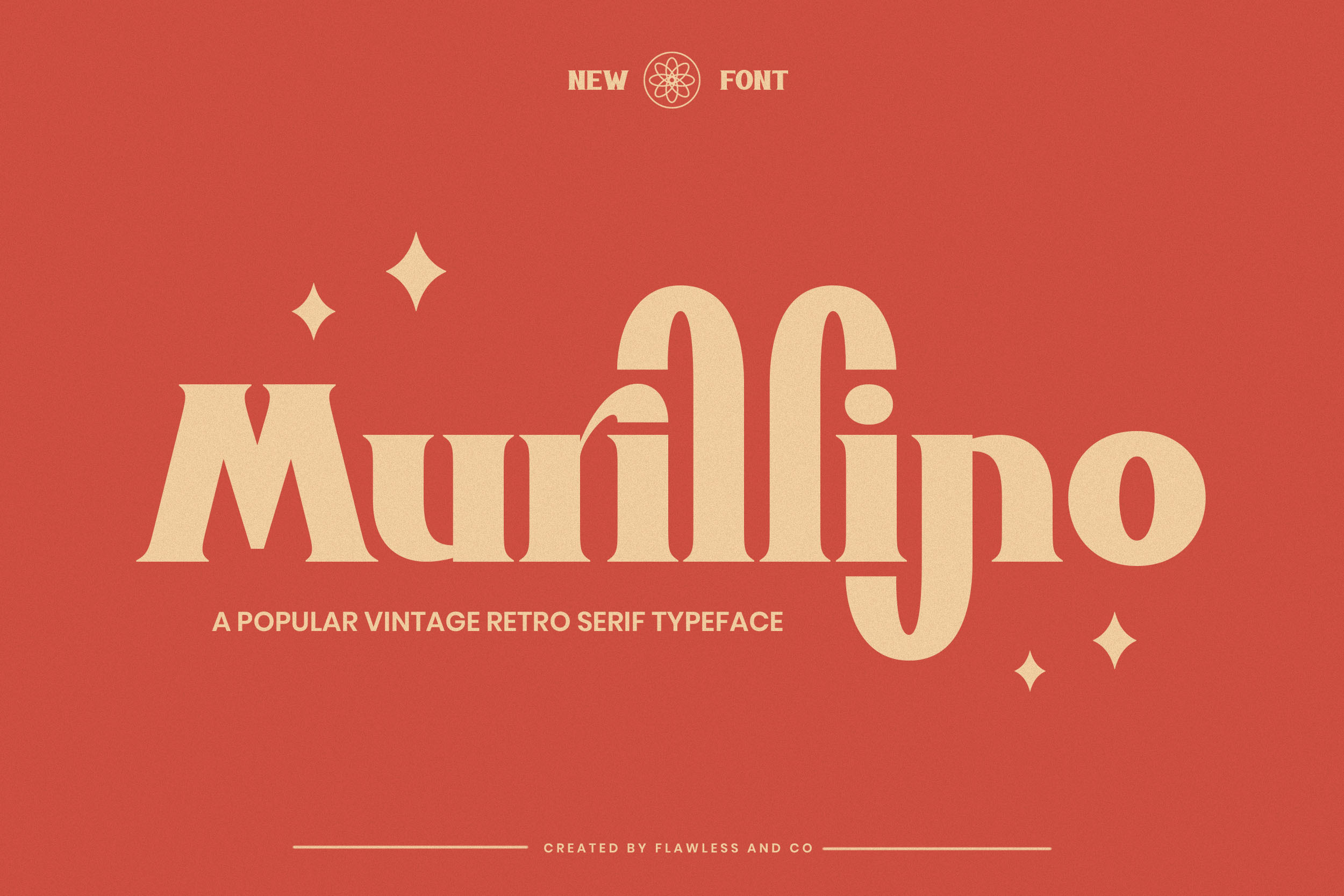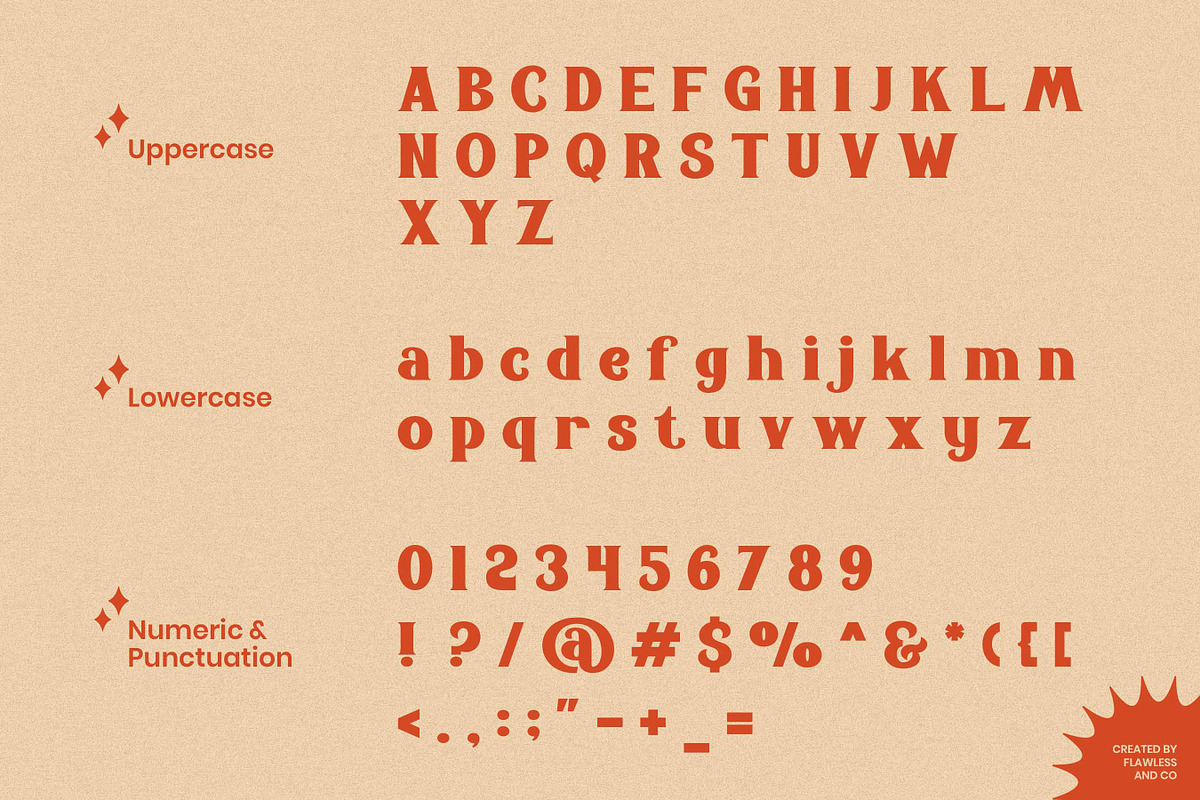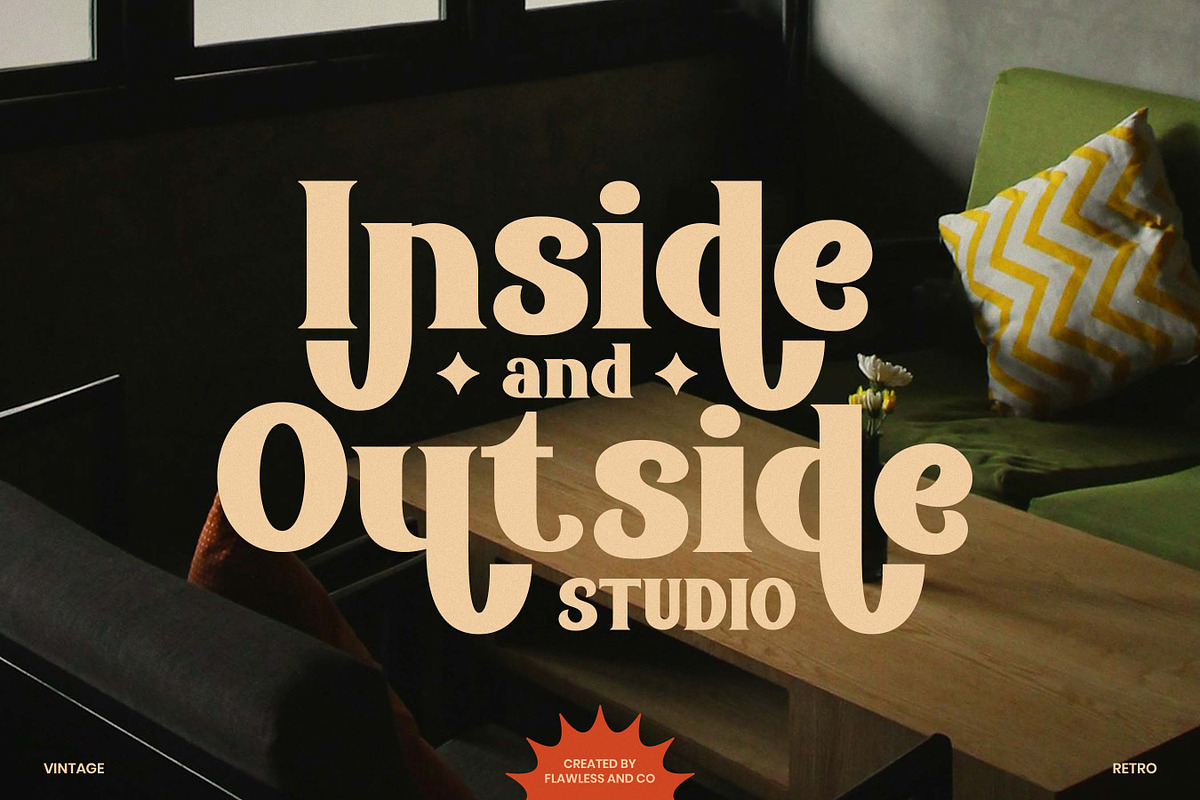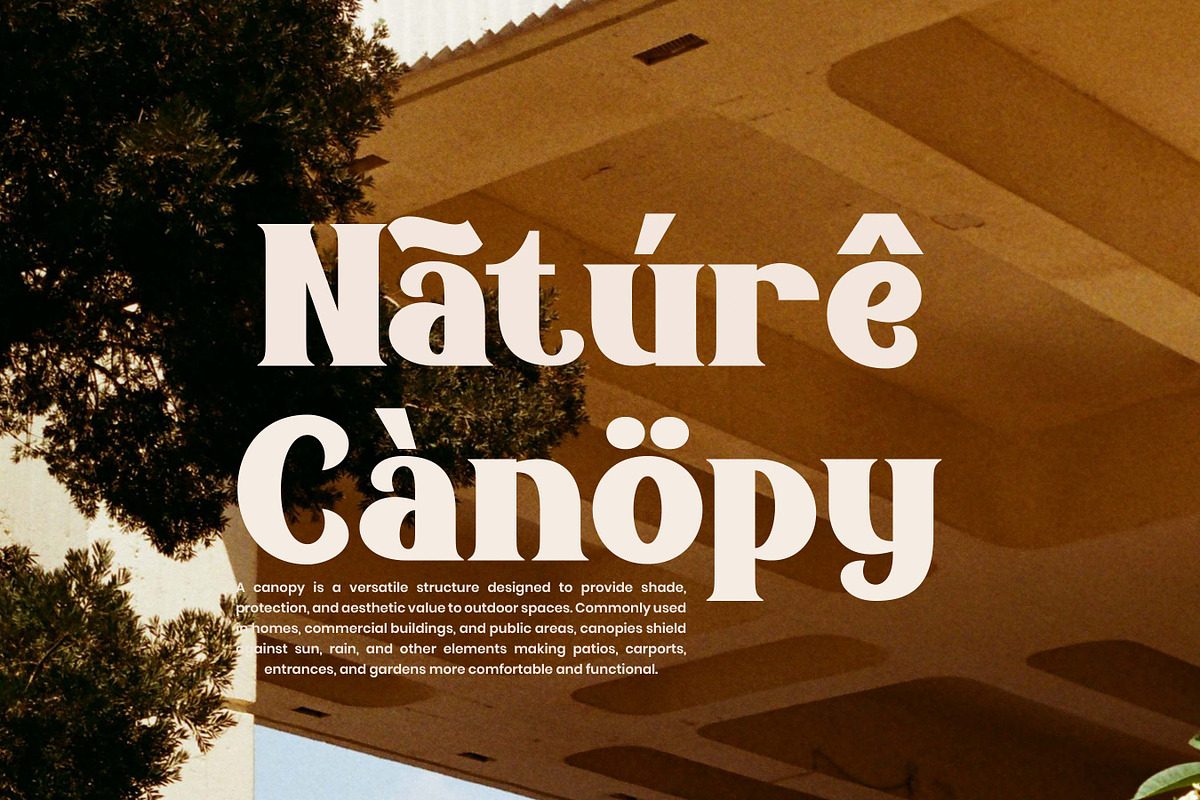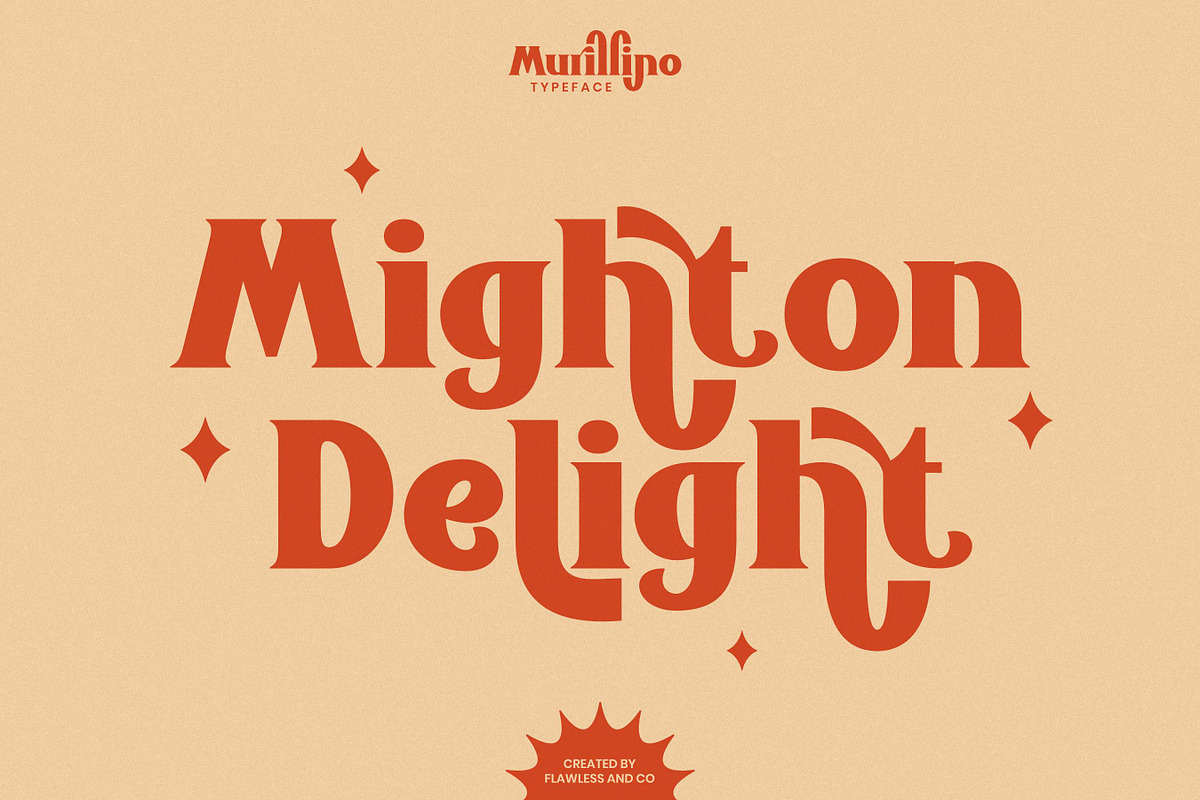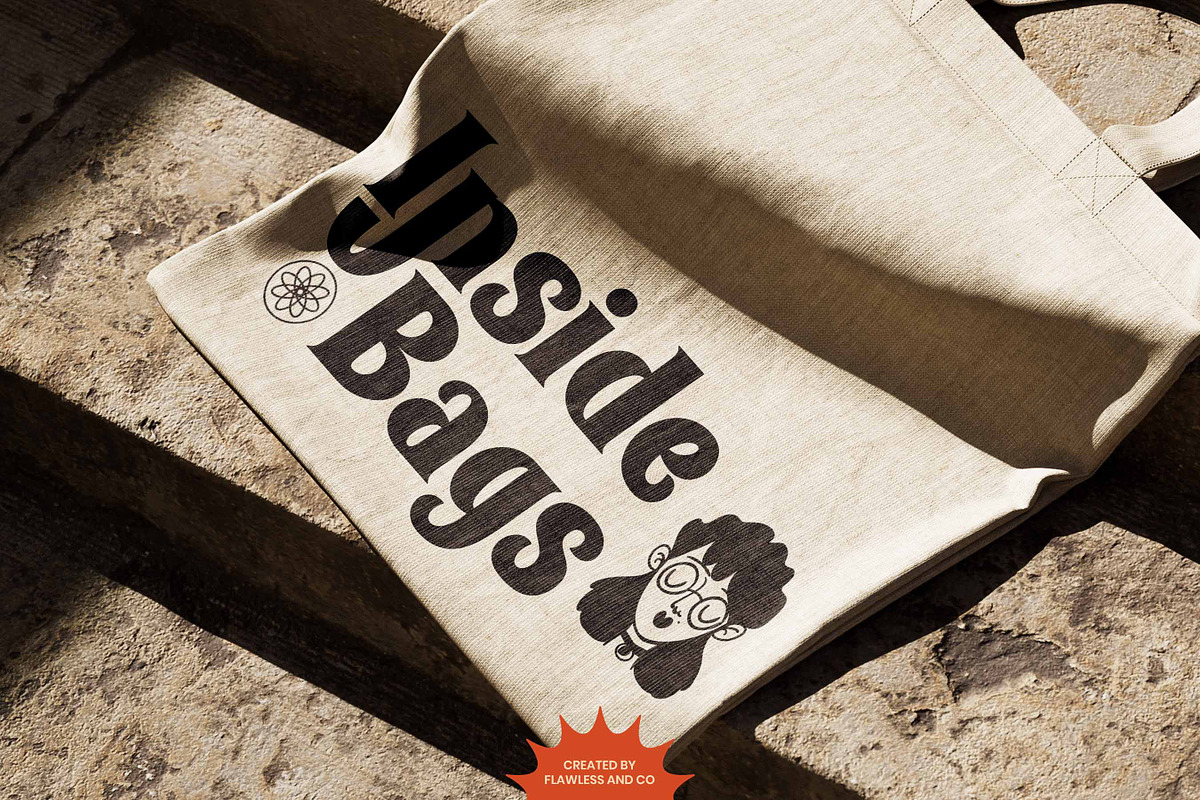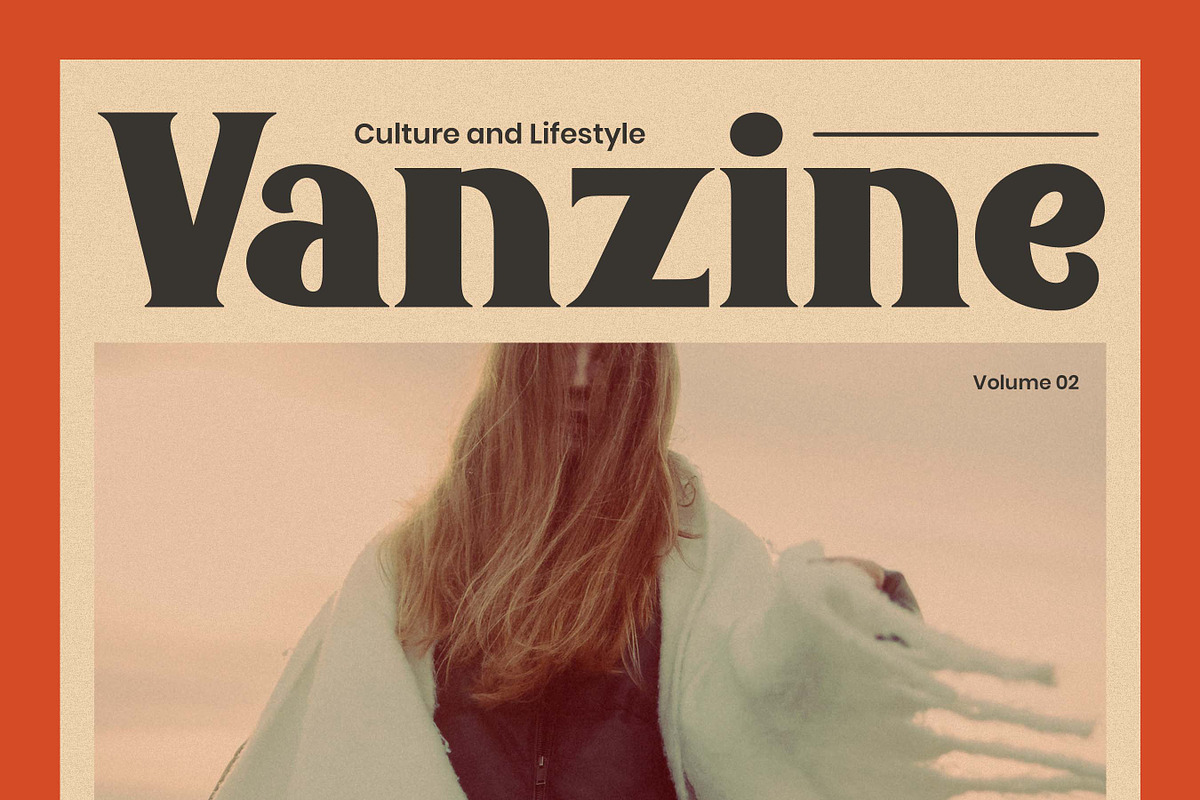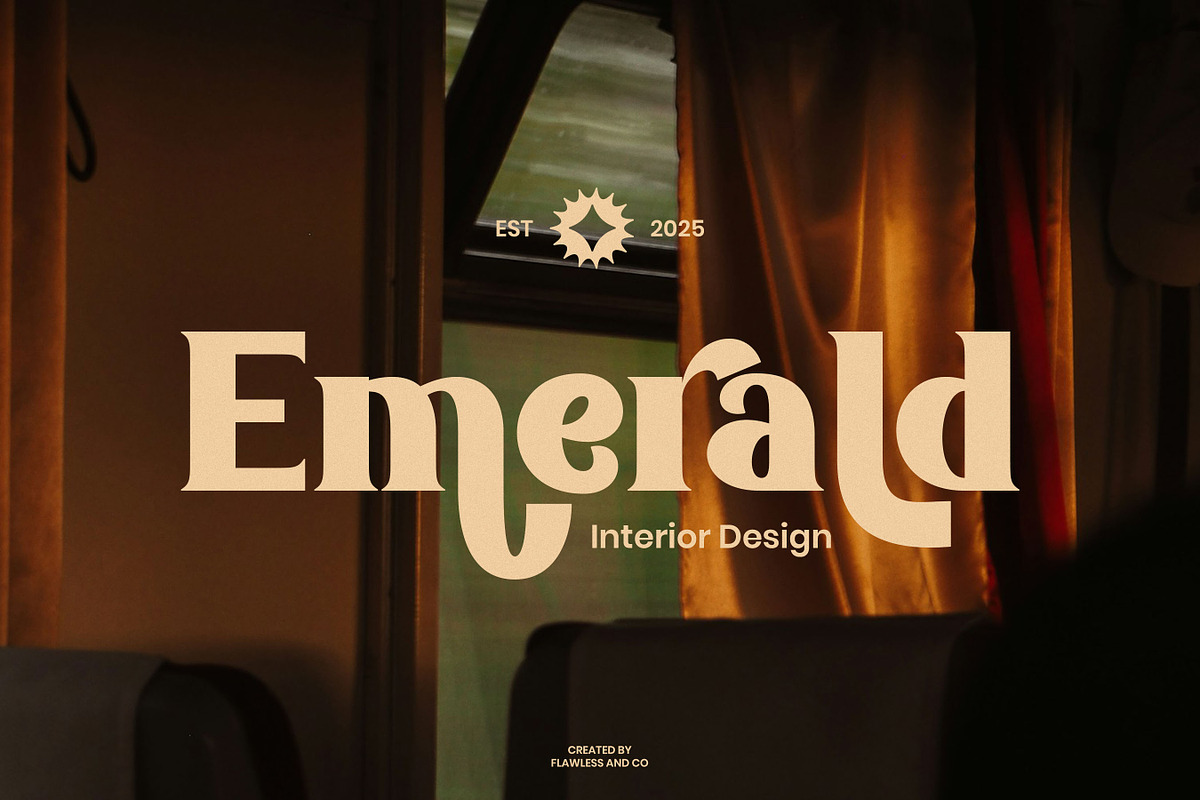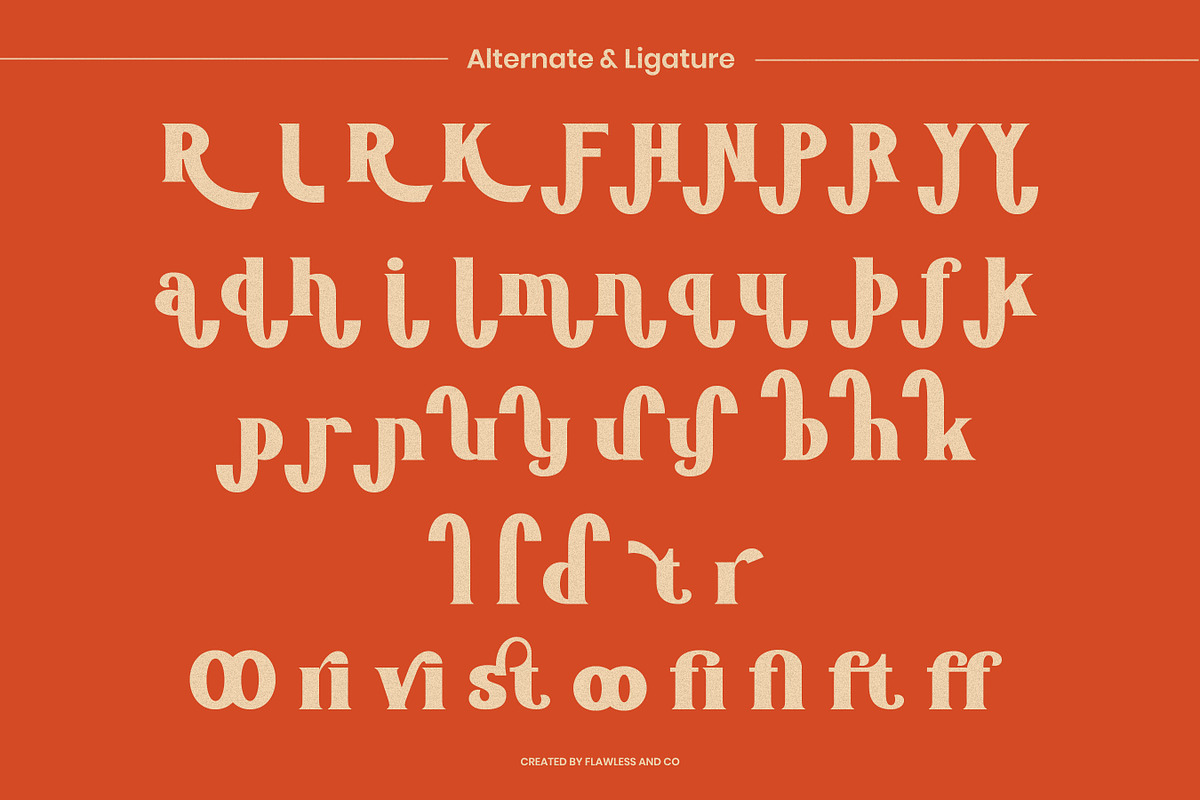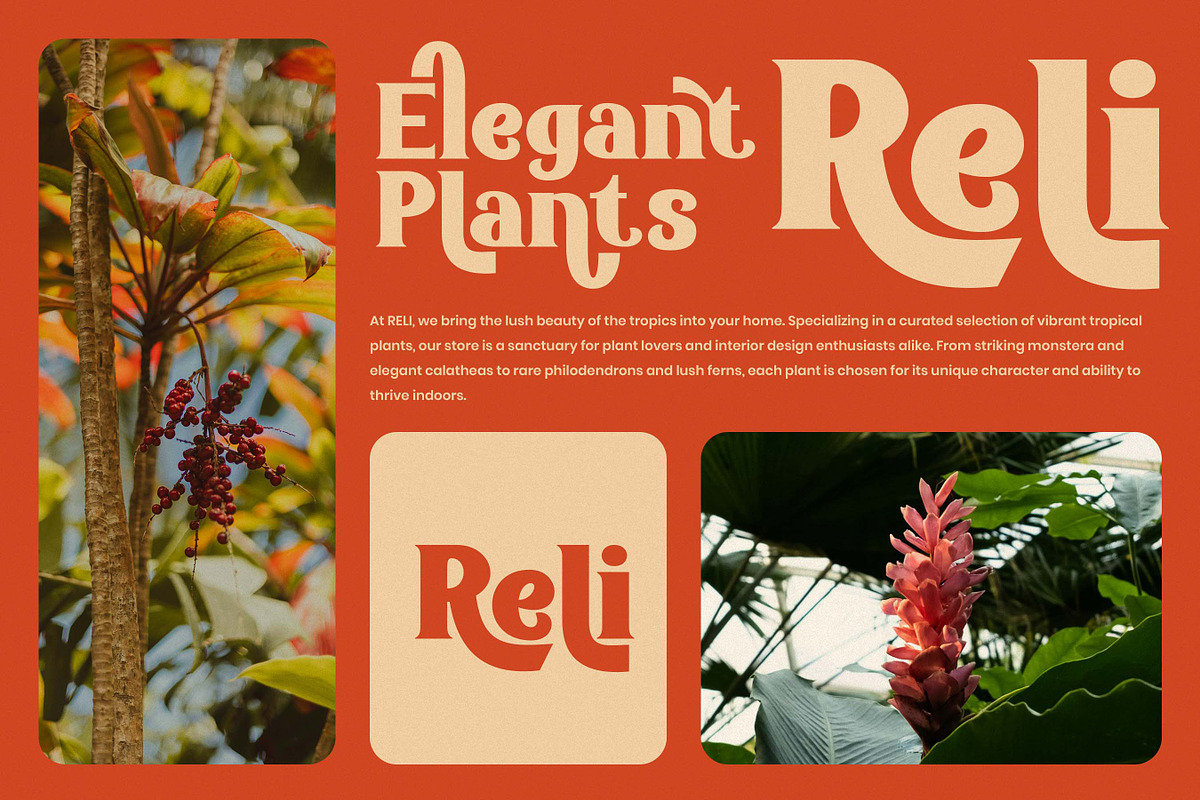
Murillino – Retro Serif Font
Murillino – Retro Serif Typeface
Murillino is a retro serif typeface that blends nostalgic warmth with classic sophistication. Its refined serifs, gentle curves, and thoughtful letterforms evoke a sense of vintage elegance—perfect for designers looking to bring personality and character into their work. Designed to shine in applications like branding, editorial design, packaging, and signage, Murillino captures the spirit of the past while remaining versatile for modern use. With its balanced proportions, charming alternates, and subtle decorative flair, it adds a distinctive touch to any visual composition. Whether you're creating a logo, headline, or promotional design, Murillino delivers a stylish and memorable typographic presence. Features:
- Multilingual Support Make your designs unforgettable with the vintage elegance of Murillino.
Who Should Use Murillino?
Murillino is perfect for creatives, brands, and designers who want to infuse their work with a sense of retro charm and refined character. Whether you're crafting a vintage-inspired logo, designing eye-catching packaging, or building editorial layouts with personality, Murillino brings a distinctive, stylish flair that stands out. Ideal for:
- Branding agencies seeking nostalgic yet polished type
- Packaging designers aiming for a timeless aesthetic
- Editorial teams creating expressive, heritage-rich layouts -Creatives working on posters, signage, or social media graphics
If your project calls for elegance, originality, and a touch of the past—Murillino is made for you.
A Must-Have Font for Brand and Logo Creators and Designers
Murillino is a standout choice for brand and logo designers who want to craft a bold, memorable identity with a retro twist. Its strong serifs and timeless style give logos a lasting impression, while its unique details add just the right amount of personality. From boutique brands to creative studios, Murillino delivers charm, structure, and visual impact in every letter.
Why Choose Murillino for Brand and Logo Projects?
Murillino offers the perfect balance of retro charm and professional polish, making it ideal for building distinctive brand identities. Its bold serif structure commands attention, while the classic letterforms evoke a sense of trust and timelessness. Whether you're designing logos, packaging, or visual branding, Murillino adds character, clarity, and a vintage-inspired edge that makes your brand stand out.
Suitable for:
Logo & brand identity design, editorial layouts, fashion & beauty branding, perfume and luxury packaging, posters, signage, creative studio projects, and retro-inspired themes—Murillino is ideal for visuals that need a bold yet nostalgic serif touch. From stylish campaigns to standout packaging, it adds charm and character to every design.